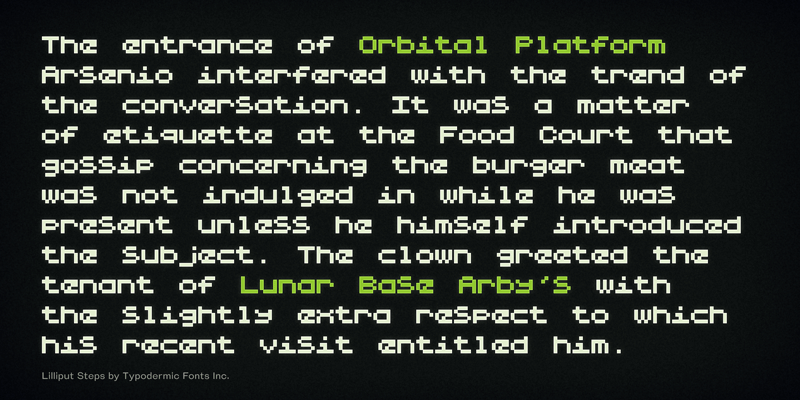
Lilliput Steps is a pixel font inspired by the prototypical Earthbound video game. This font includes a license that allows free commercial use: sometimes referred to as a desktop license. This allows you to install the font on a computer and use it to create posters, web graphics, game graphics, t-shirts, videos, signs, logos and more. Read the license agreement for details. If you'd like to embed this font in an app, ebook, on the web or anything that's not covered by the desktop license agreement, visit the link below. You'll find distributors who offer different types of licenses or you can contact me for help. http://typodermicfonts.com/lilliput-steps/ |